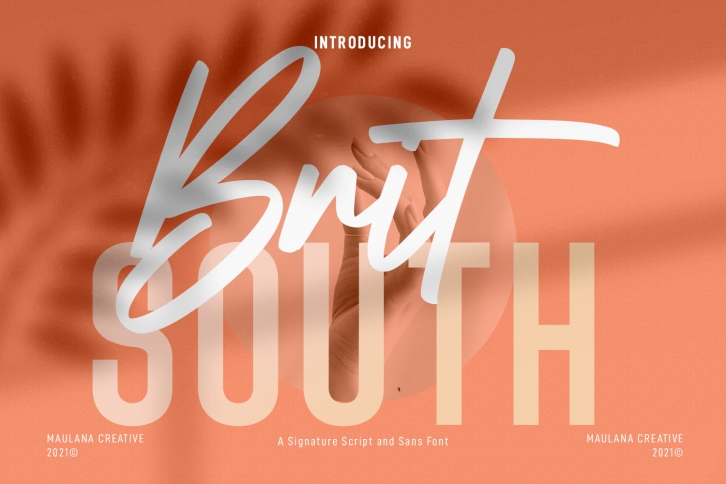
Britsouth is a modern script and sans serif font duo. Combine the to create the most attractive covers, banners, titles, product packaging materials, social media posts, or anything else. Your imagination is the only limit!